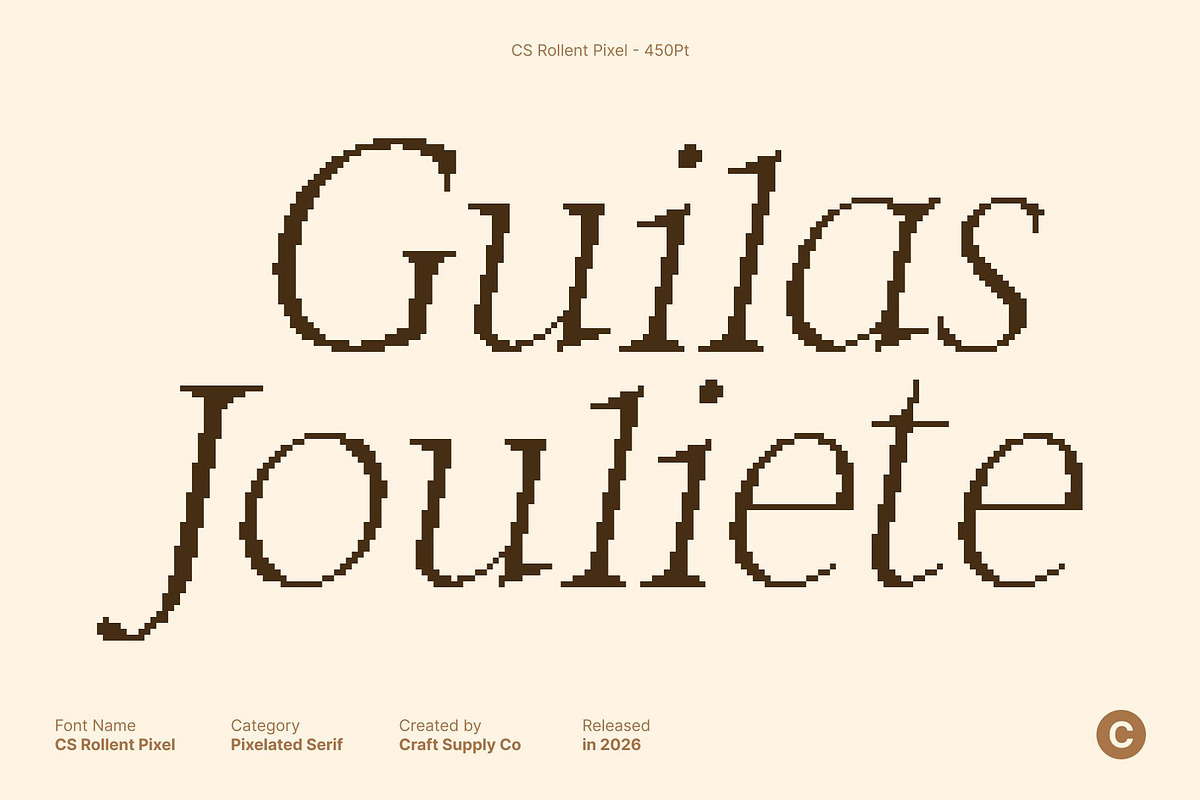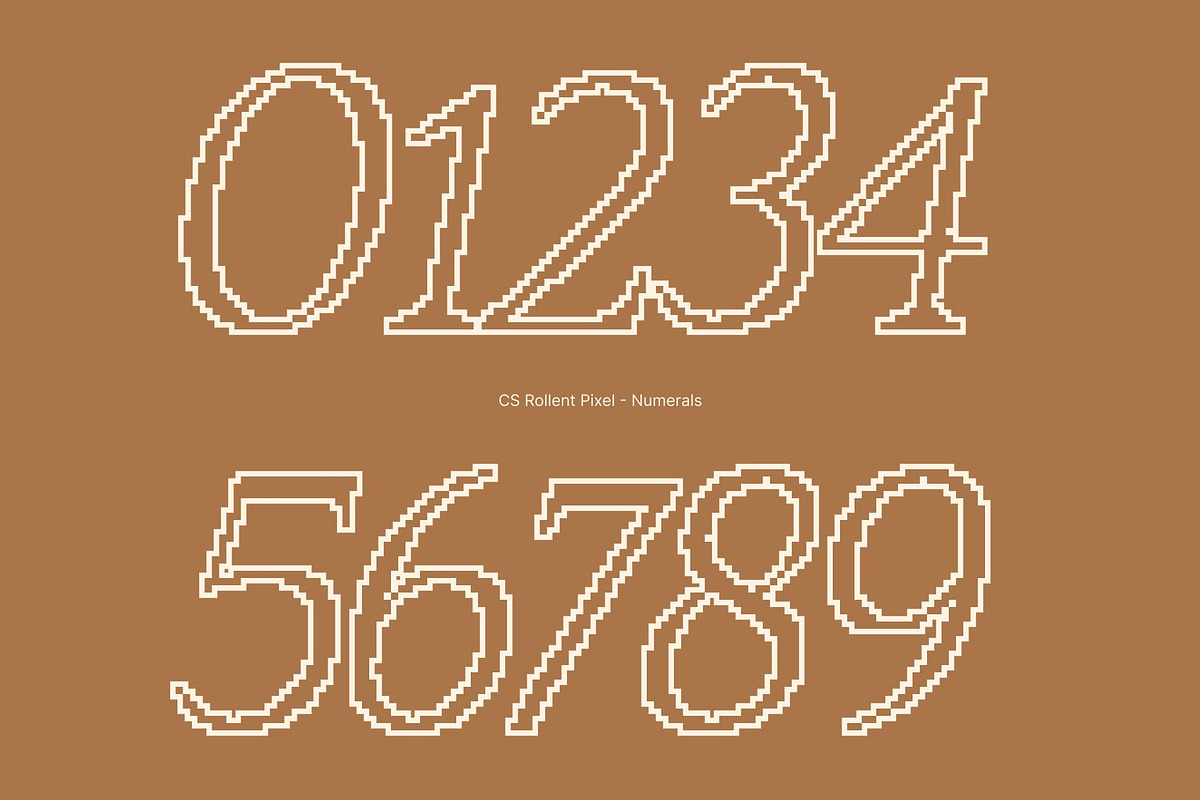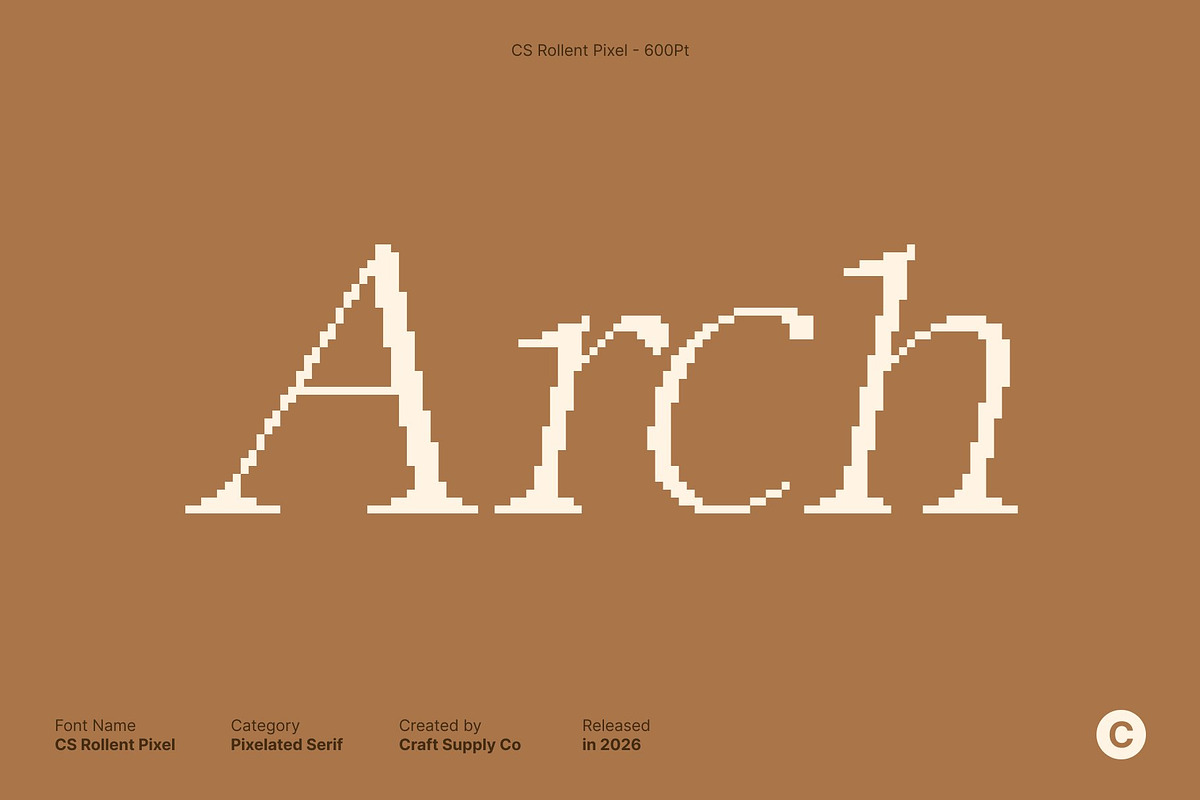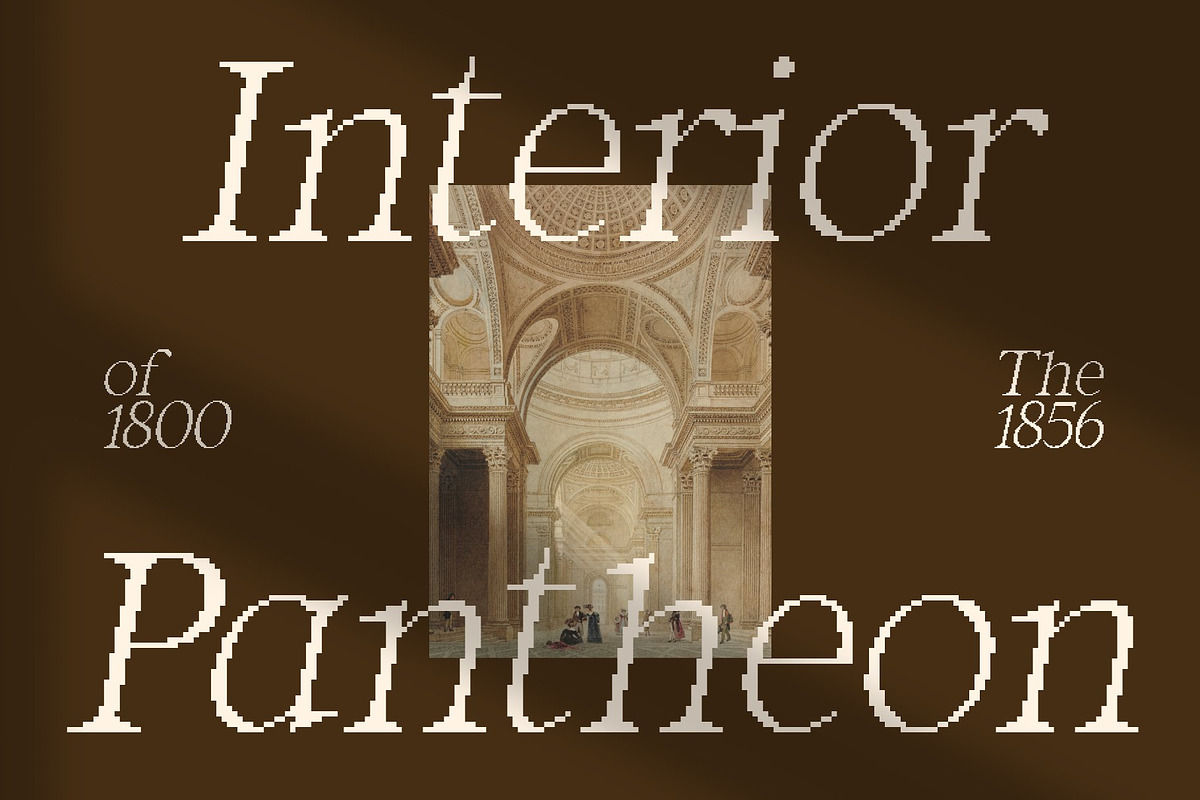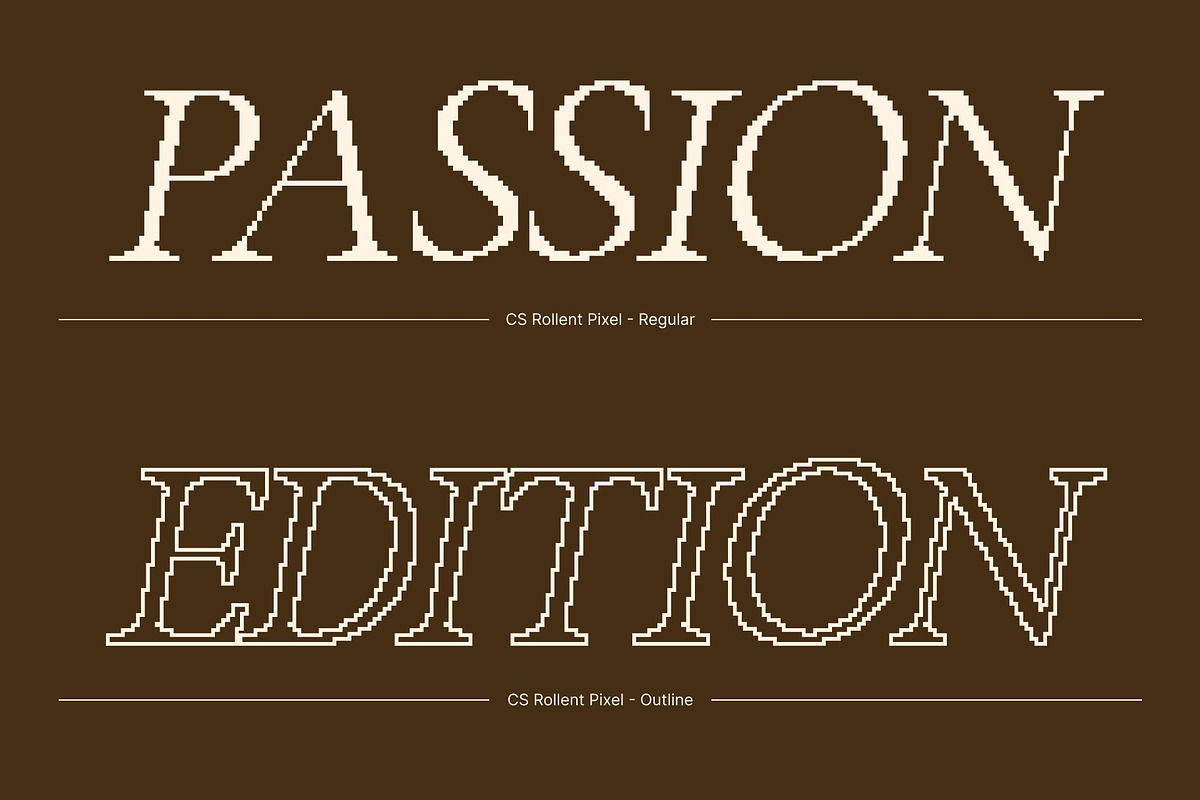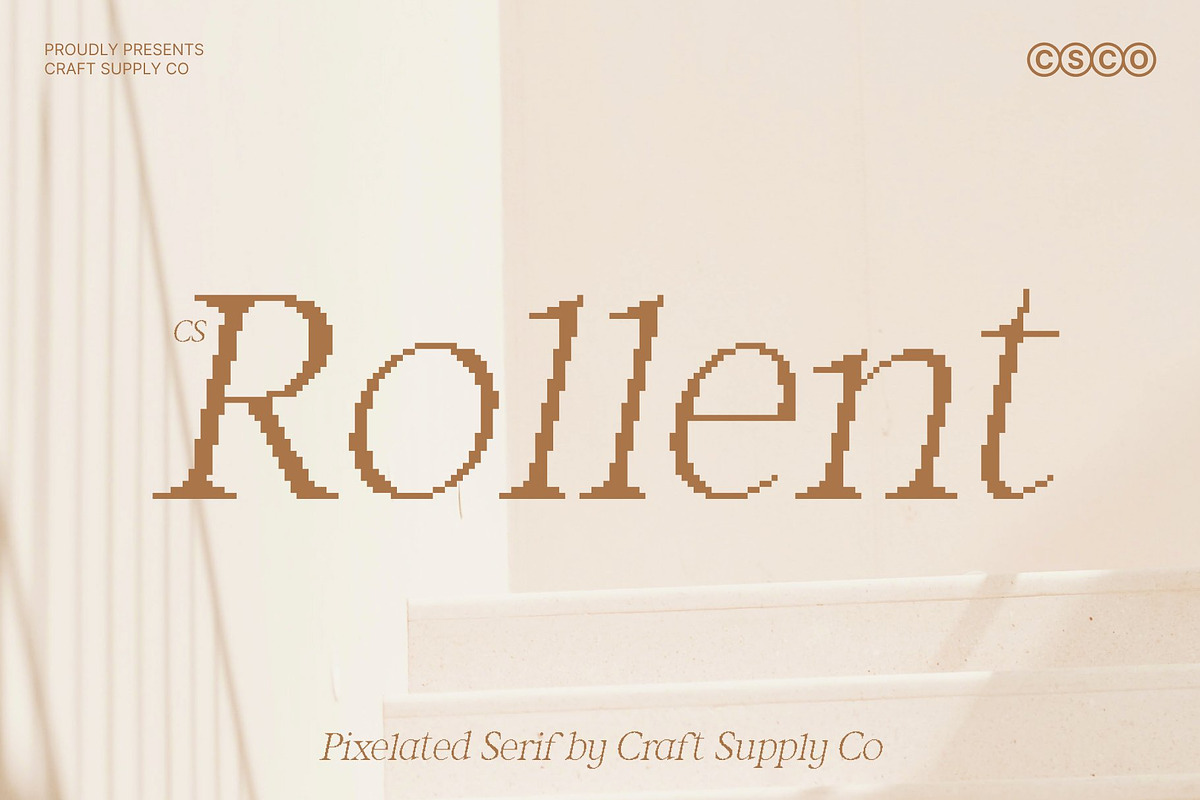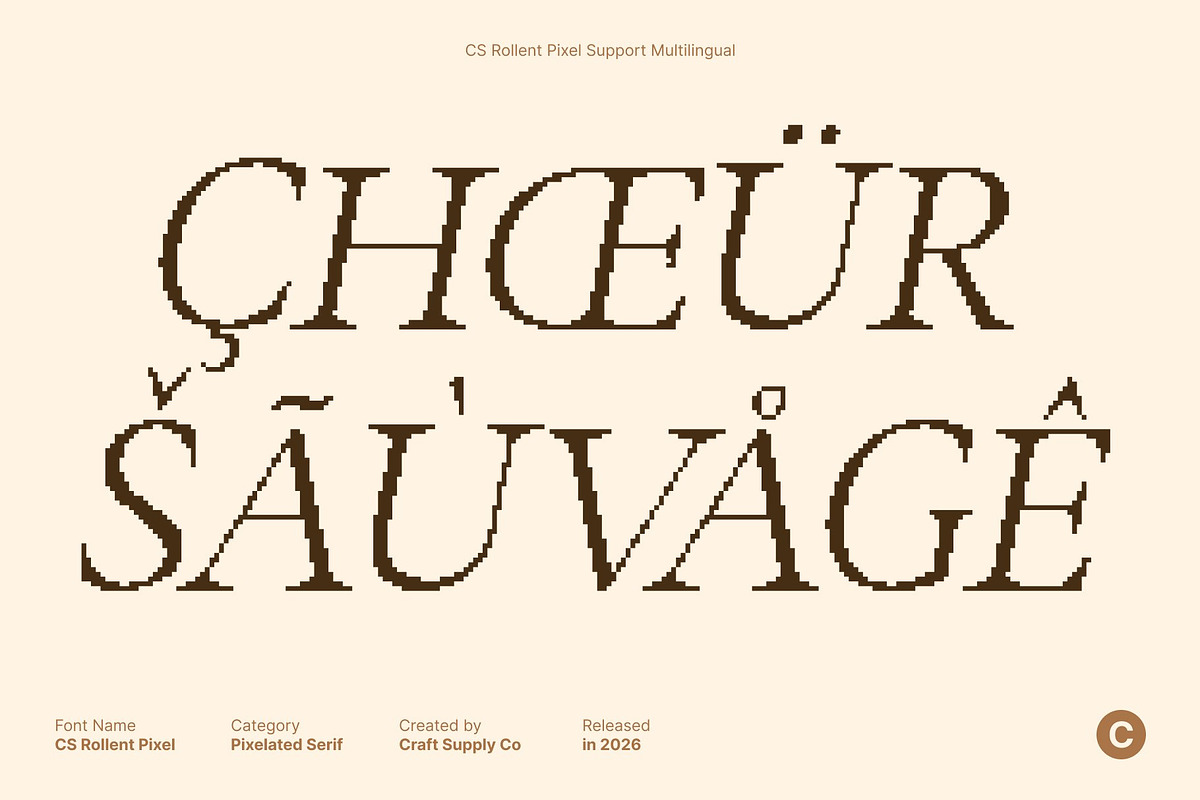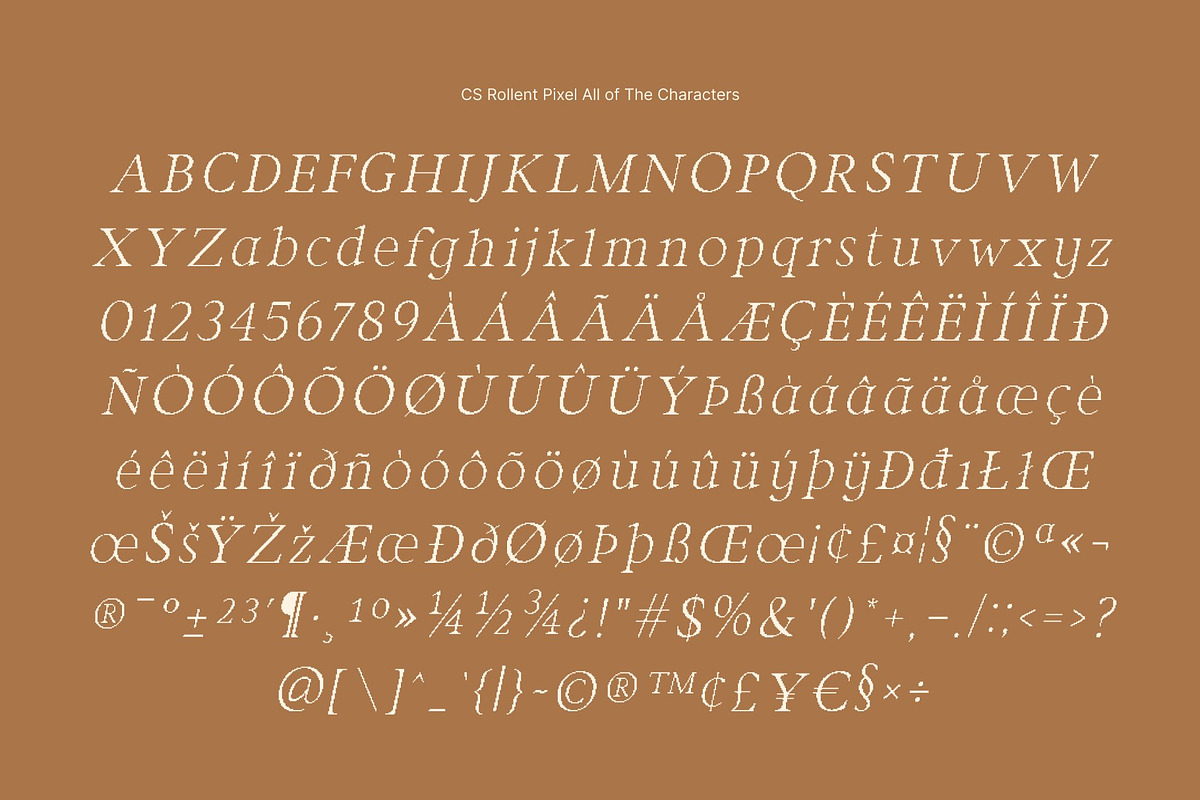
CS Rollent Pixel
CS Rollent Pixel – Modern Classic Serif with Pixel Precision
Timeless Serif Elegance Reimagined in Pixel Form This transforms modern classic serif sophistication into a structured pixel-based design. Its timeless elegance and professional tone remain intact, while geometric pixel construction introduces a sharp, digital clarity. The result is a serif font that feels authoritative, refined, and perfectly suited for modern screen-based design.
Geometric Balance with Digital Discipline Built on clean geometry and precise proportions, thsi font replaces smooth curves with deliberate pixel edges. This structured approach enhances clarity and rhythm, giving each character a confident, architectural presence. Sharp pixel serifs and balanced spacing create a typeface that feels disciplined, intentional, and visually stable.
Professional Simplicity for Modern Media By combining classic serif heritage with pixel accuracy, excels in editorial headlines, digital branding, and modern publications. Its professional appearance communicates trust, intelligence, and clarity, making it ideal for magazines, corporate identities, tech editorials, and refined digital layouts.
Versatile Serif for Print, Screen, and Retro-Tech Aesthetics This font adapts effortlessly across print and digital platforms. Whether used in high-end branding, modern editorial design, or projects inspired by retro technology, it delivers a perfect balance of tradition and innovation. This font proves that classic professionalism can thrive in a pixel-perfect world.